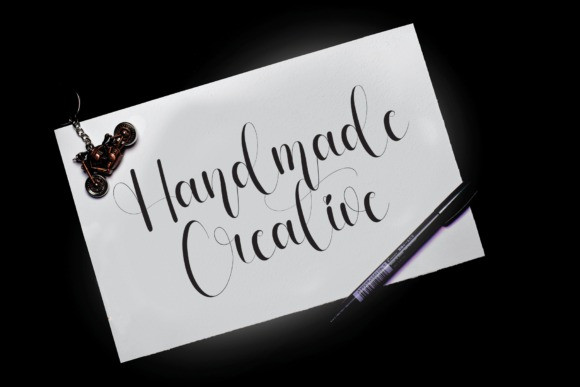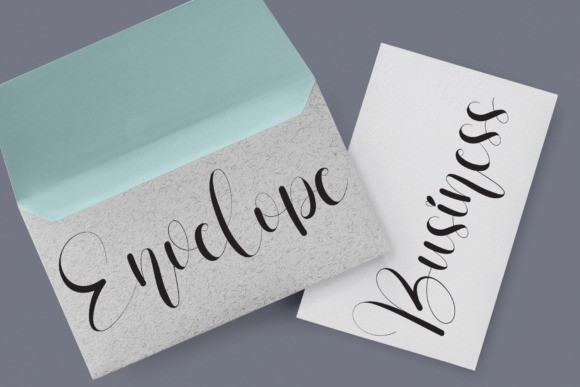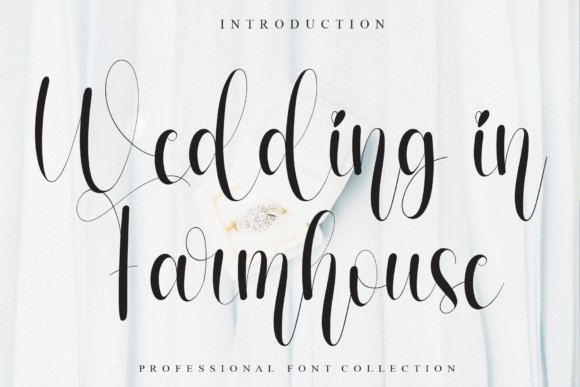
Wedding In Farmhouse Font
Wedding In Farmhouse Calligraphy Font, playful and extremely elegant, Wedding in Farmhouse is a script font that will impress every time! Fall in love with its unique, sleek characters, and use it in your most delicate projects!